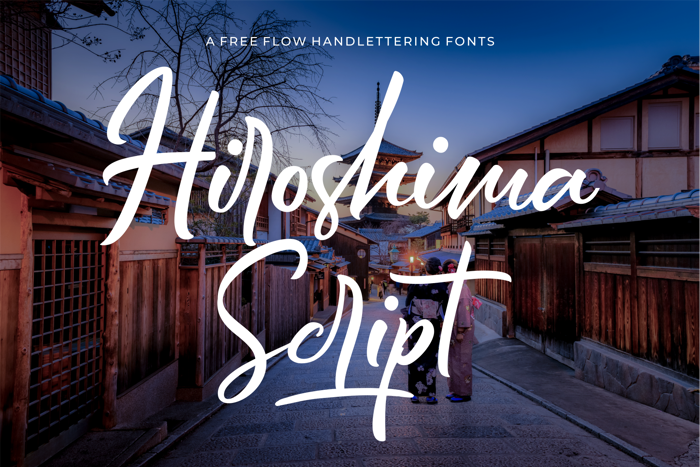
Hiroshima Script Font
Introducing the Hiroshima Script Font a casual and fabolous font with free flow handlettering (100+ Ligatures) inspired by indie clothing.